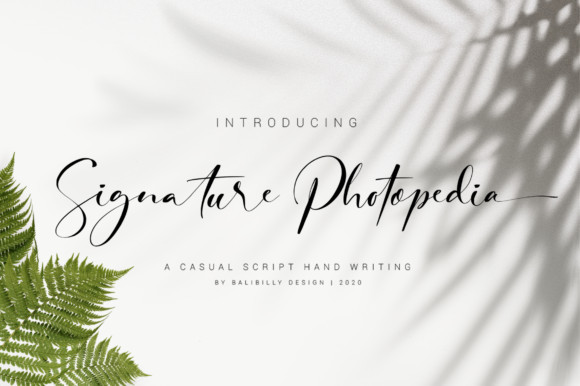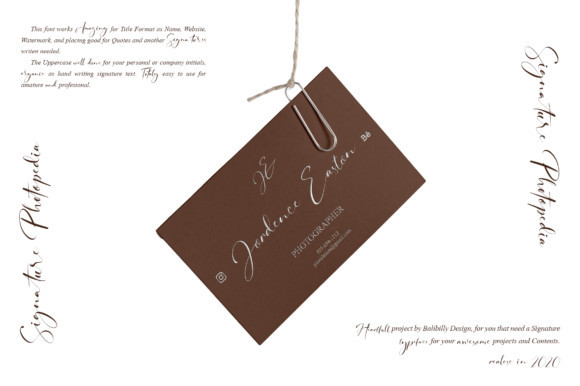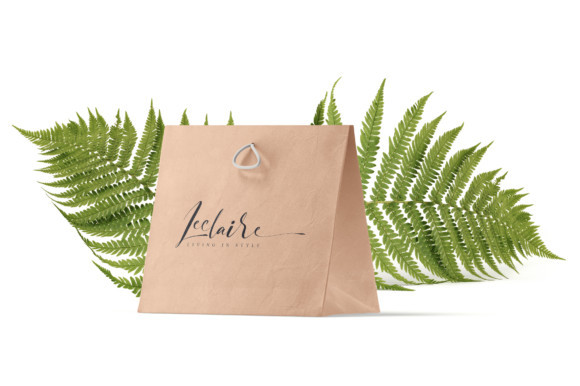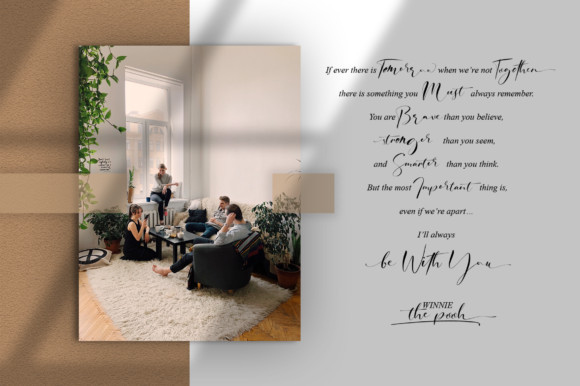
Signature Photopedia Font
Signature Photopedia feels equally charming and elegant. This stunning script font is a stylish homage to classic calligraphy. It features a varying baseline, smooth lines, gorgeous glyphs and stunning alternates. This font is PUA encoded which means you can access all of the amazing glyphs and swashes with ease! It also features a wealth of special features including alternate glyphs and ligatures.